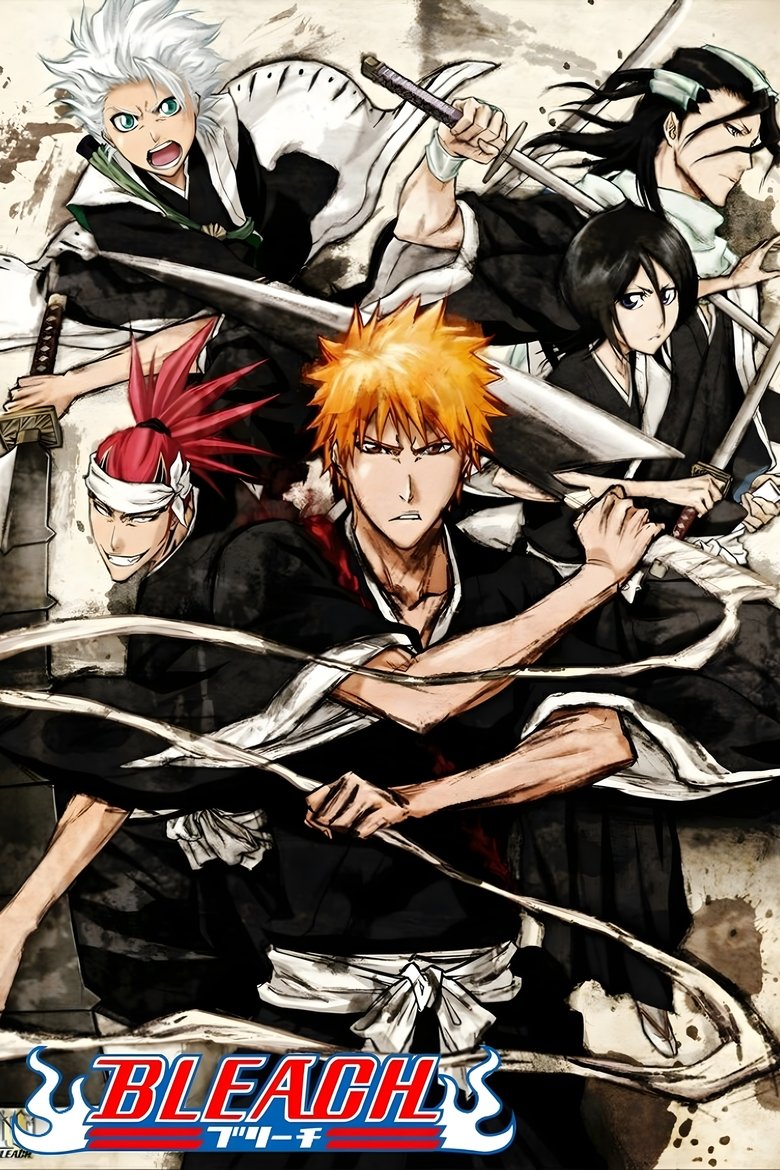
About the Bleach font
Bleach's title is a jagged, brushed display. Pirata One evokes its sharp, soul-reaper edge.
What font is used in the Bleach logo?+
The original Bleach logo uses custom lettering. This generator recreates the look with Pirata One — a free, open-license font you can style and download.